A curated selection of ten contemporary fonts spanning refined serifs and elegant sans designs, engineered for premium branding applications. This professional collection offers sophisticated typographic solutions for high-end fashion, beauty, hospitality, and lifestyle brands requiring distinctive visual identity systems.
Giabe Font
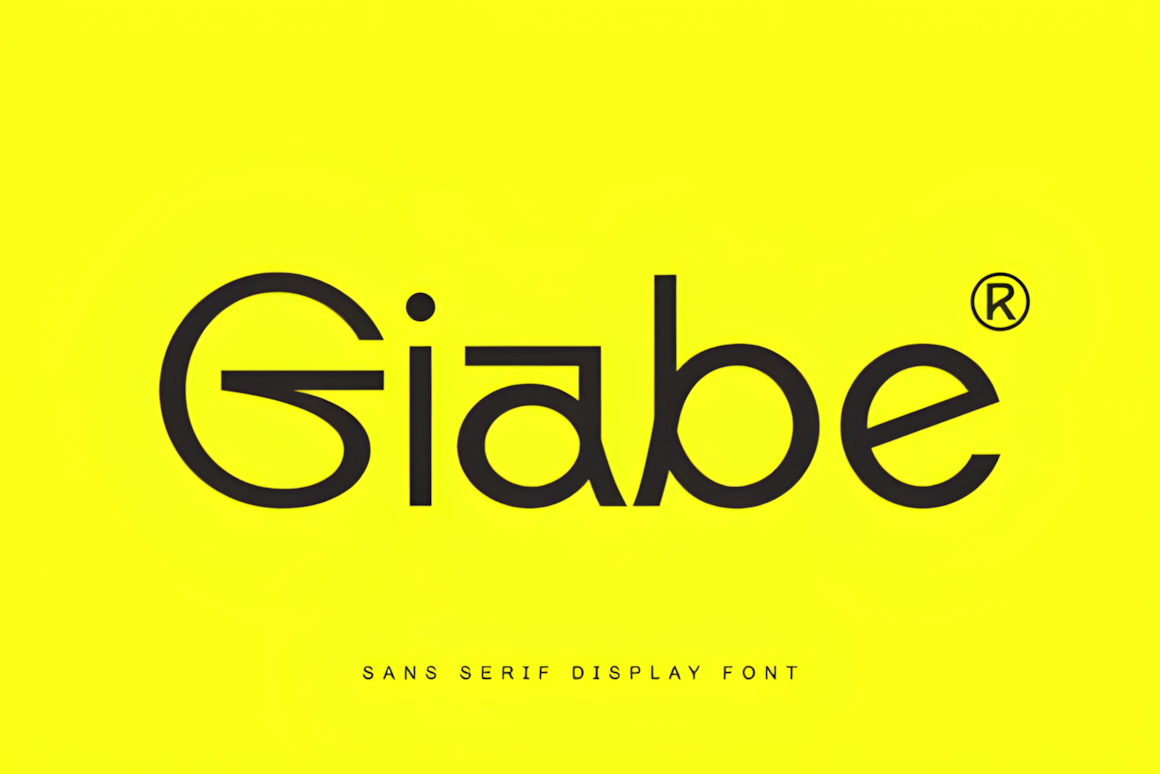
Ronikel Font
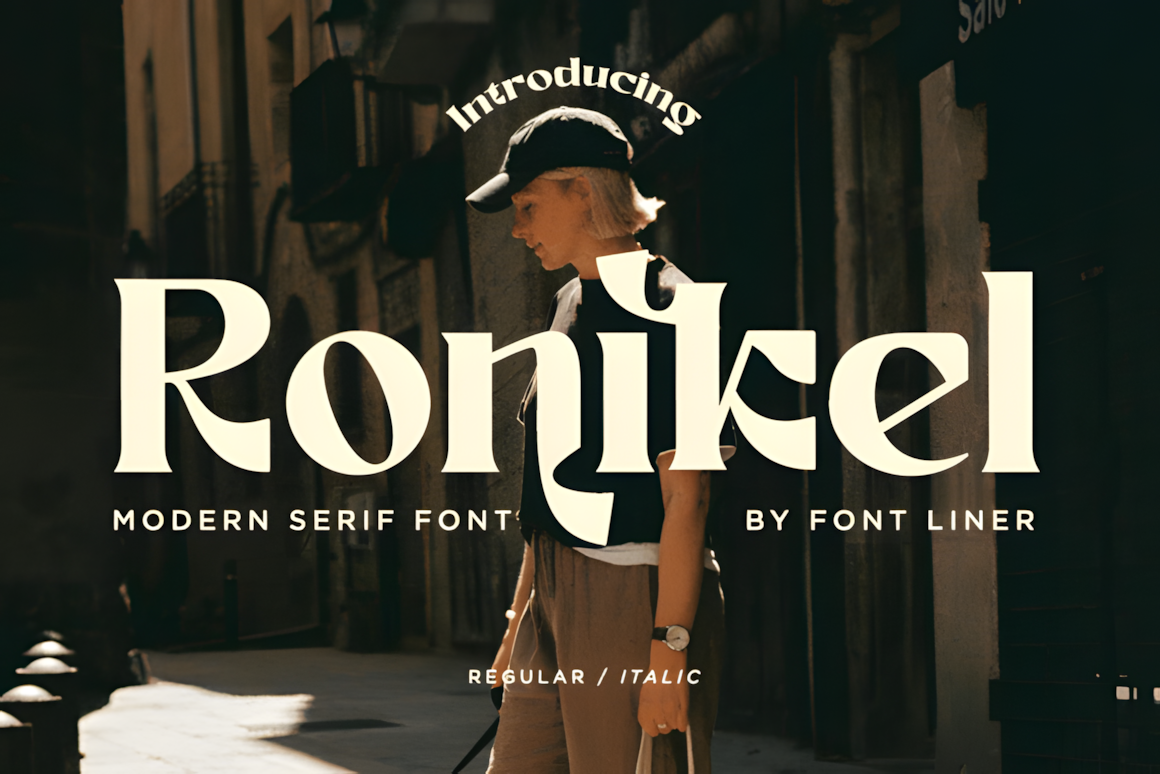
Mofela Font
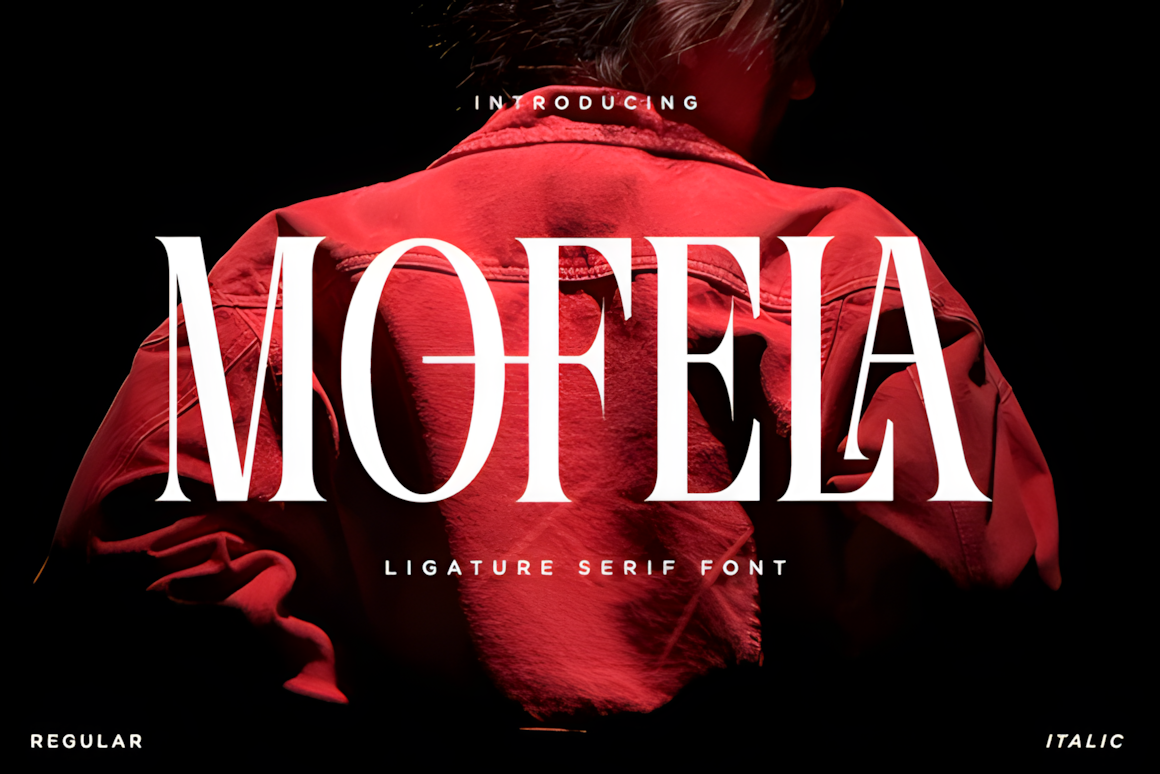
Monblock Font
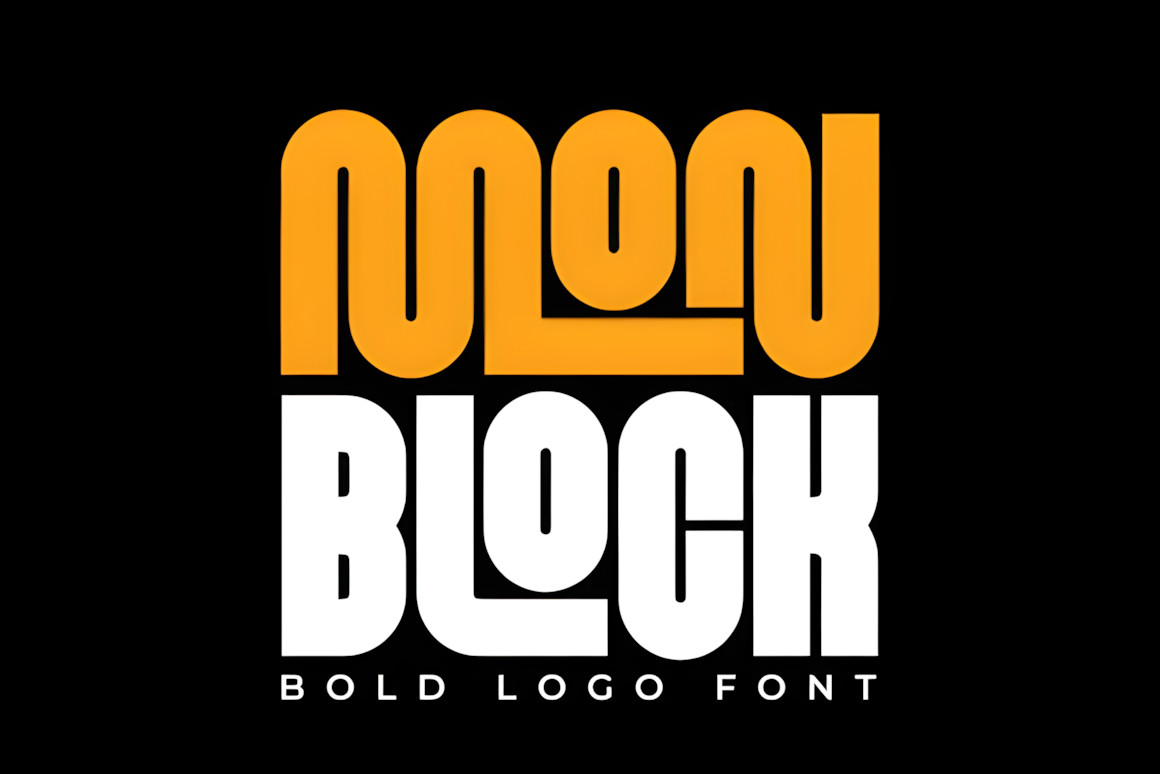
TRT Makron Font
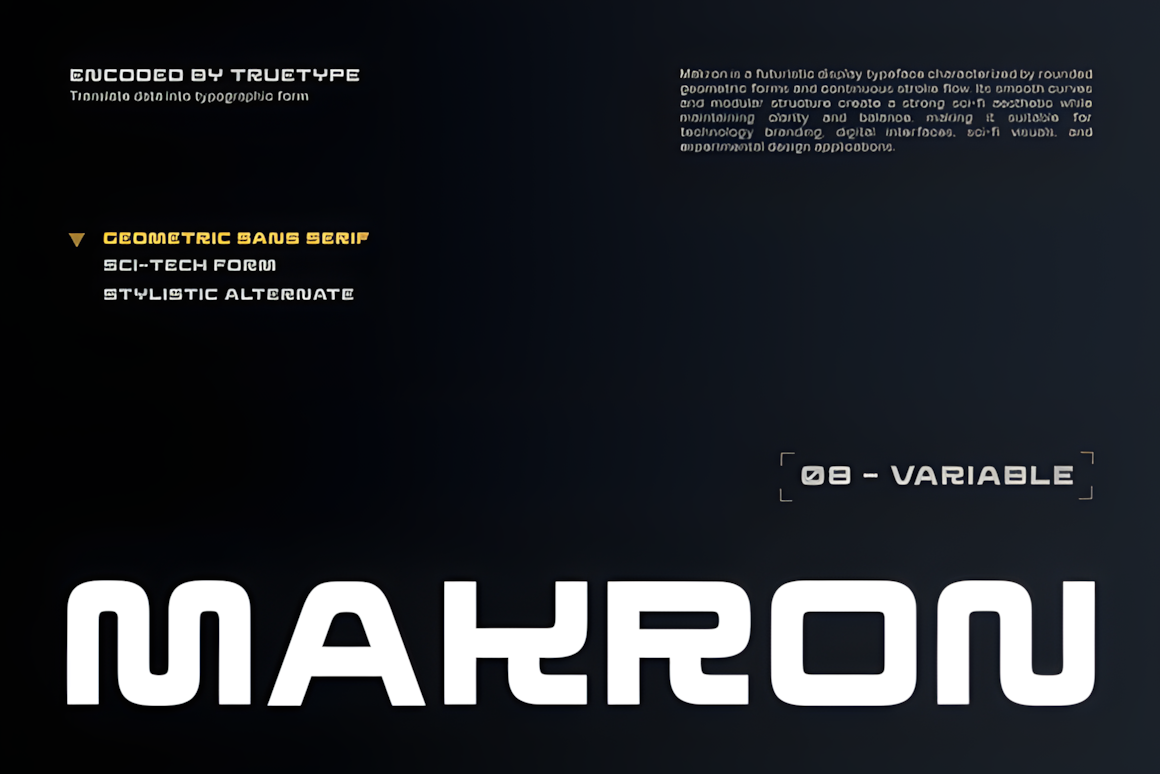
Gafitte Font
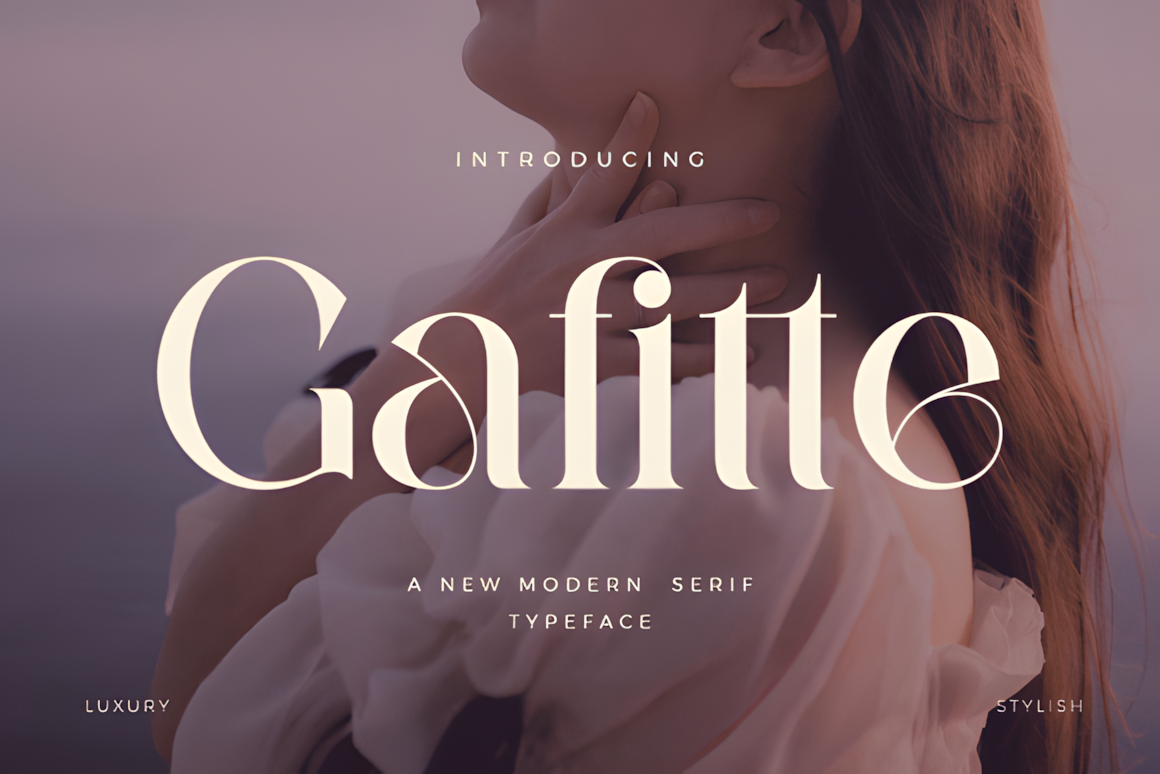
Qegua Font
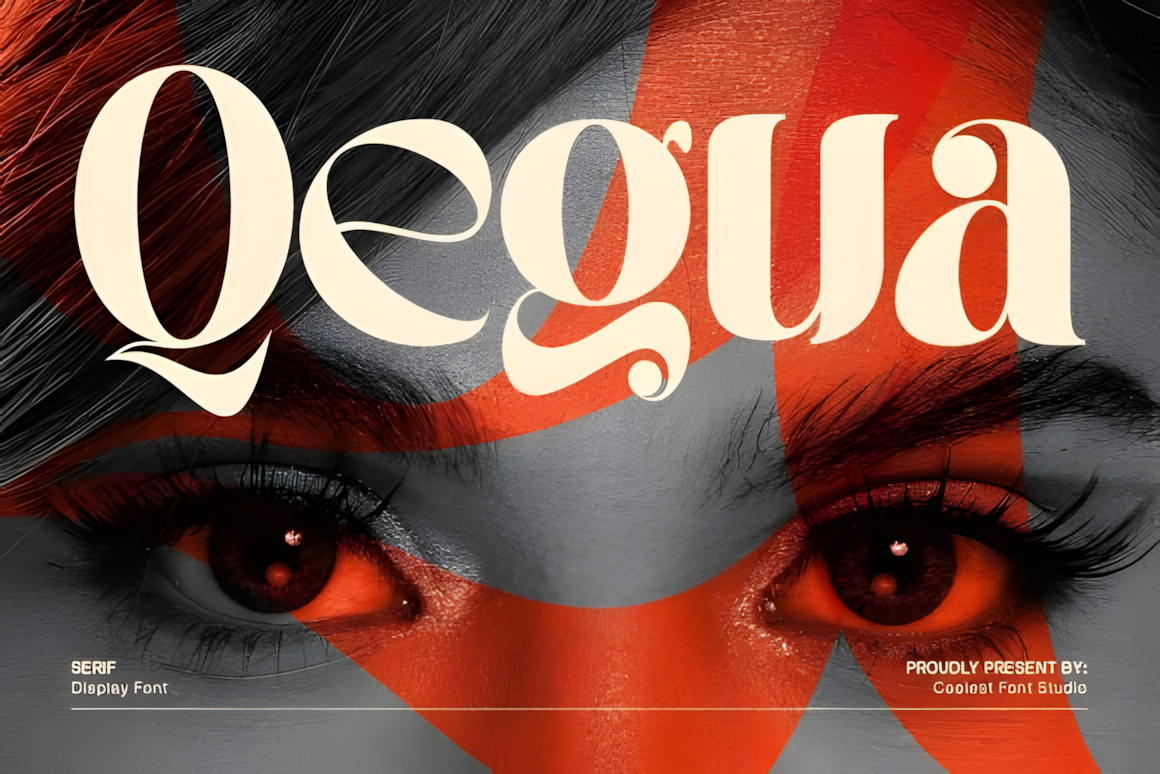
Nelara Font
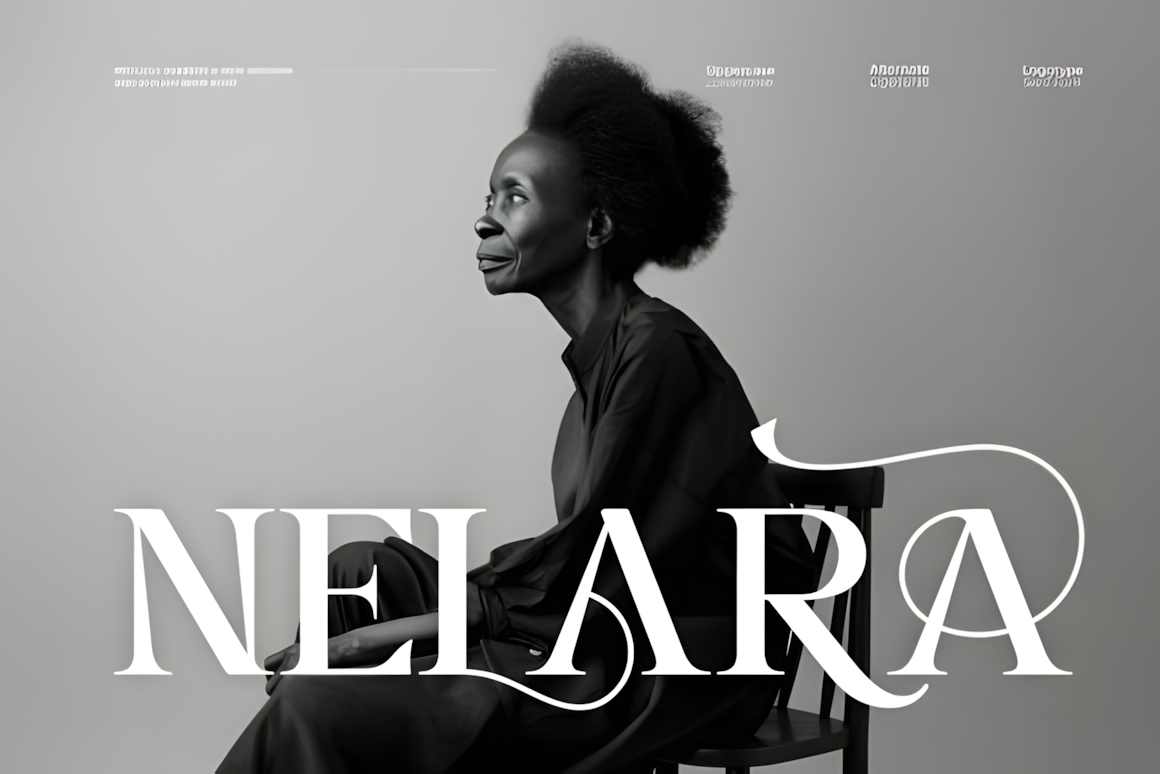
Gavore Font
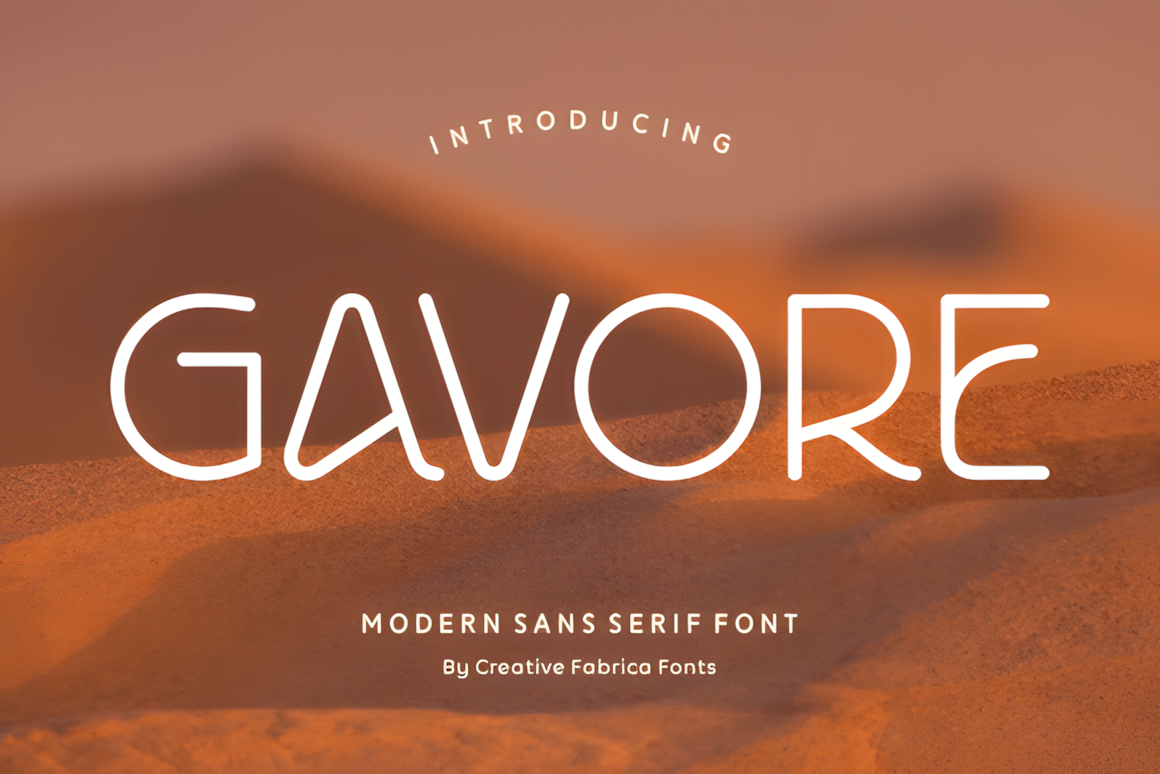
Soffie Font